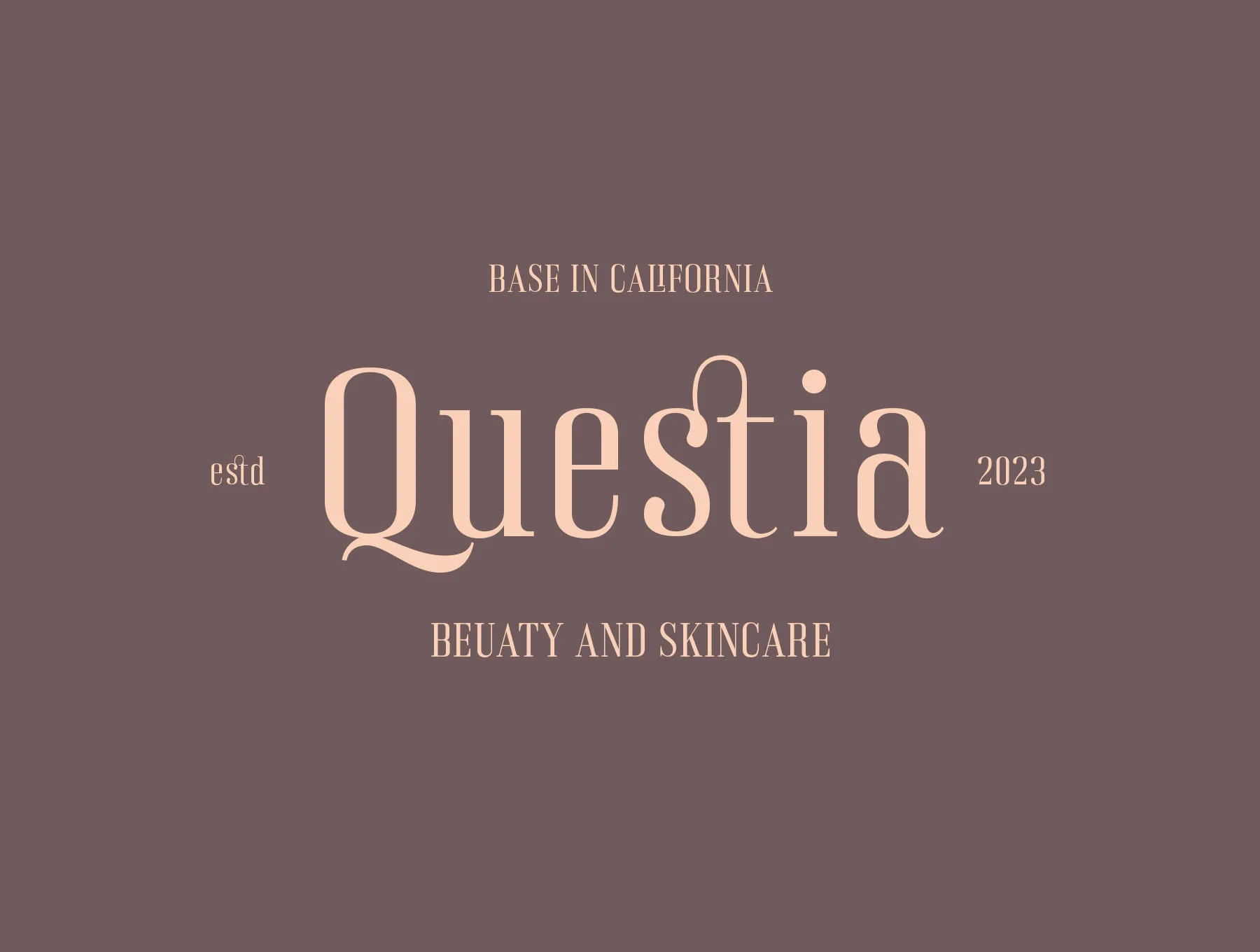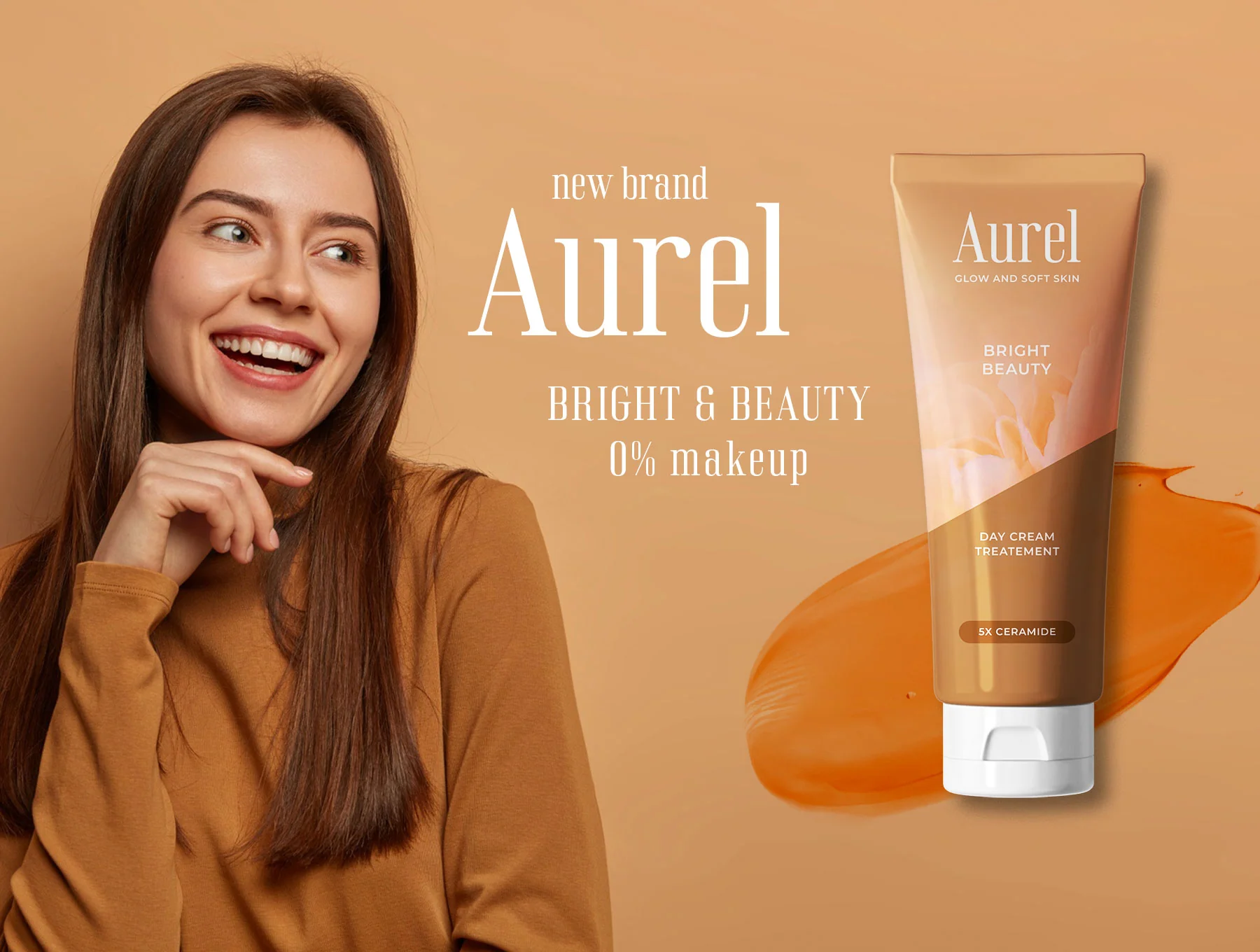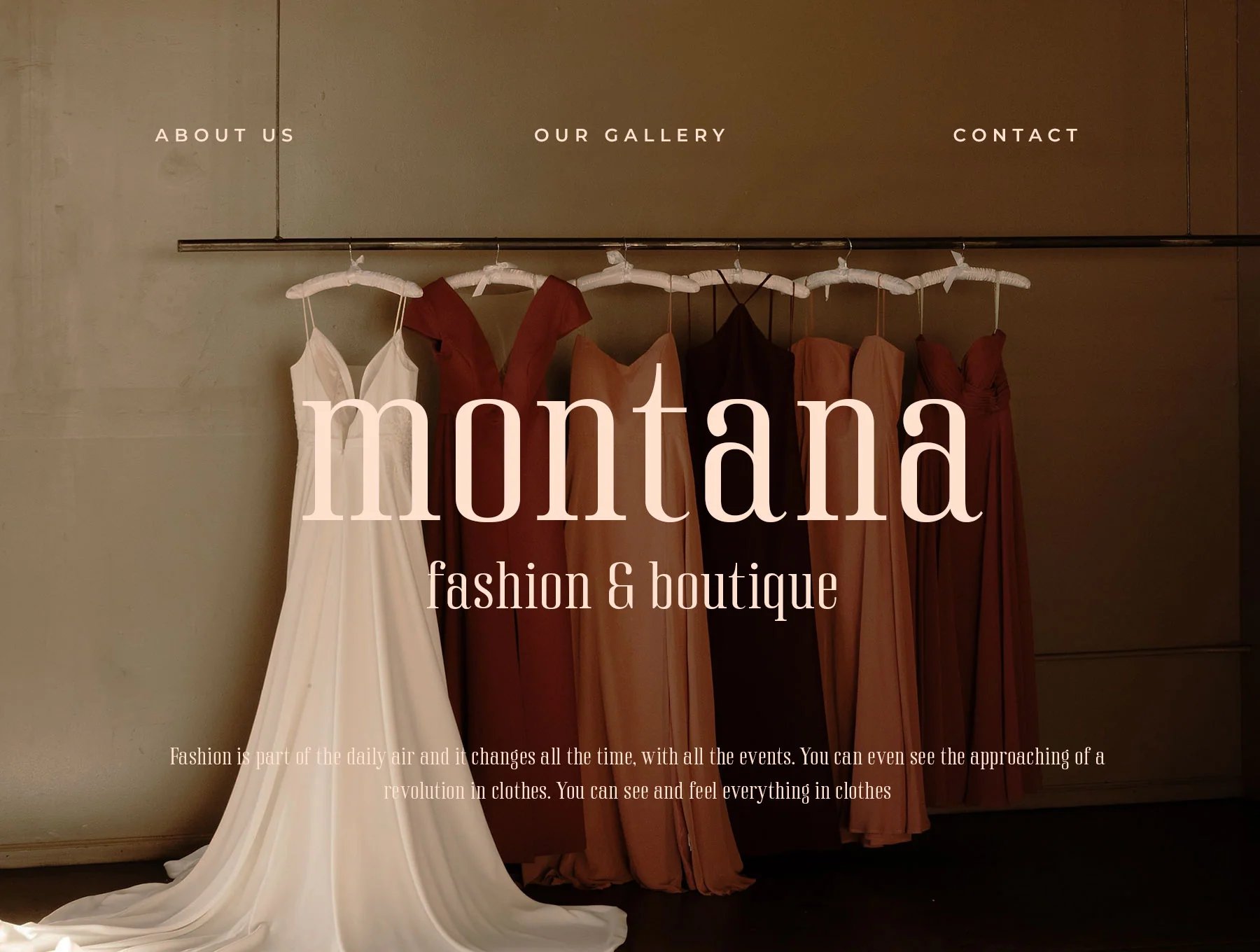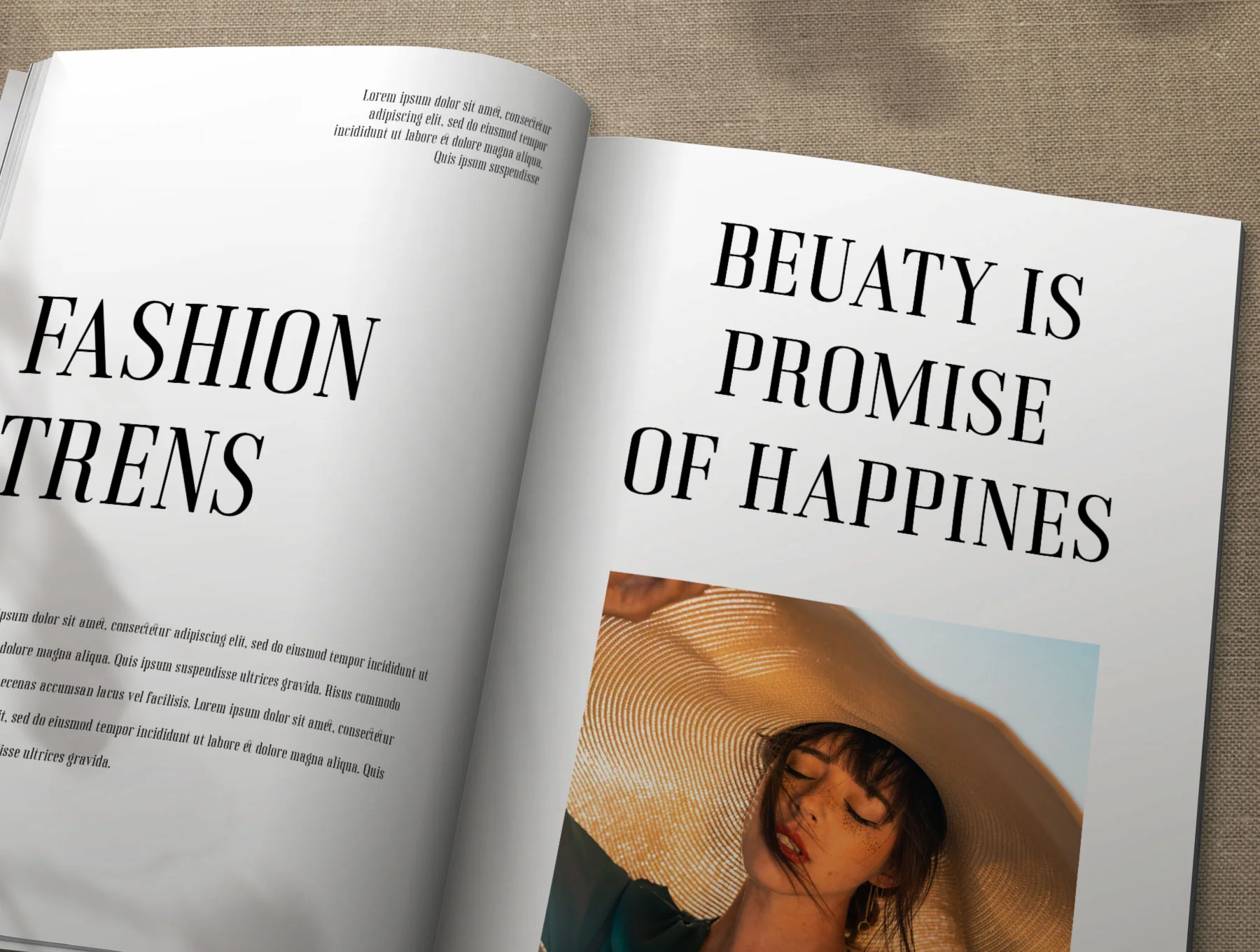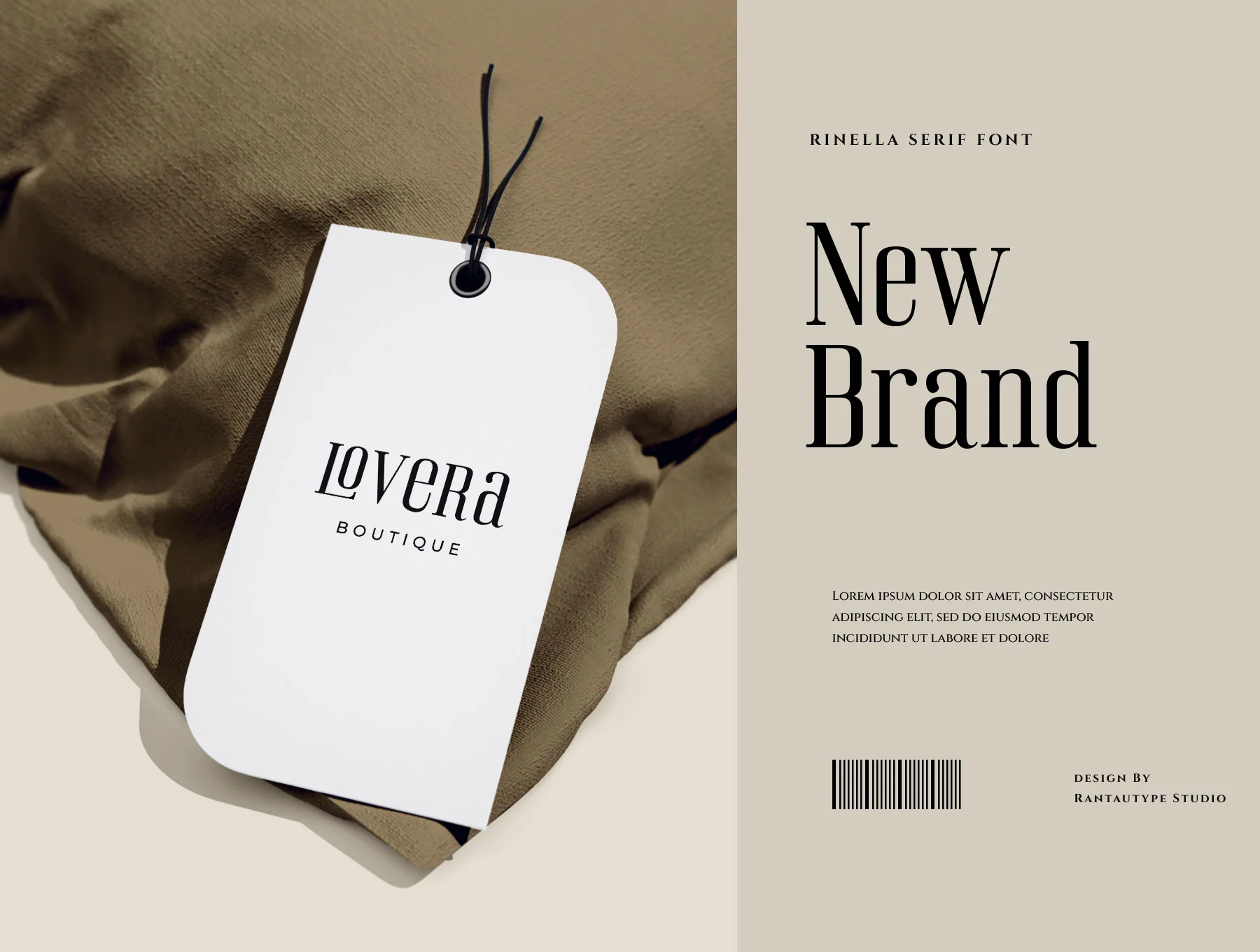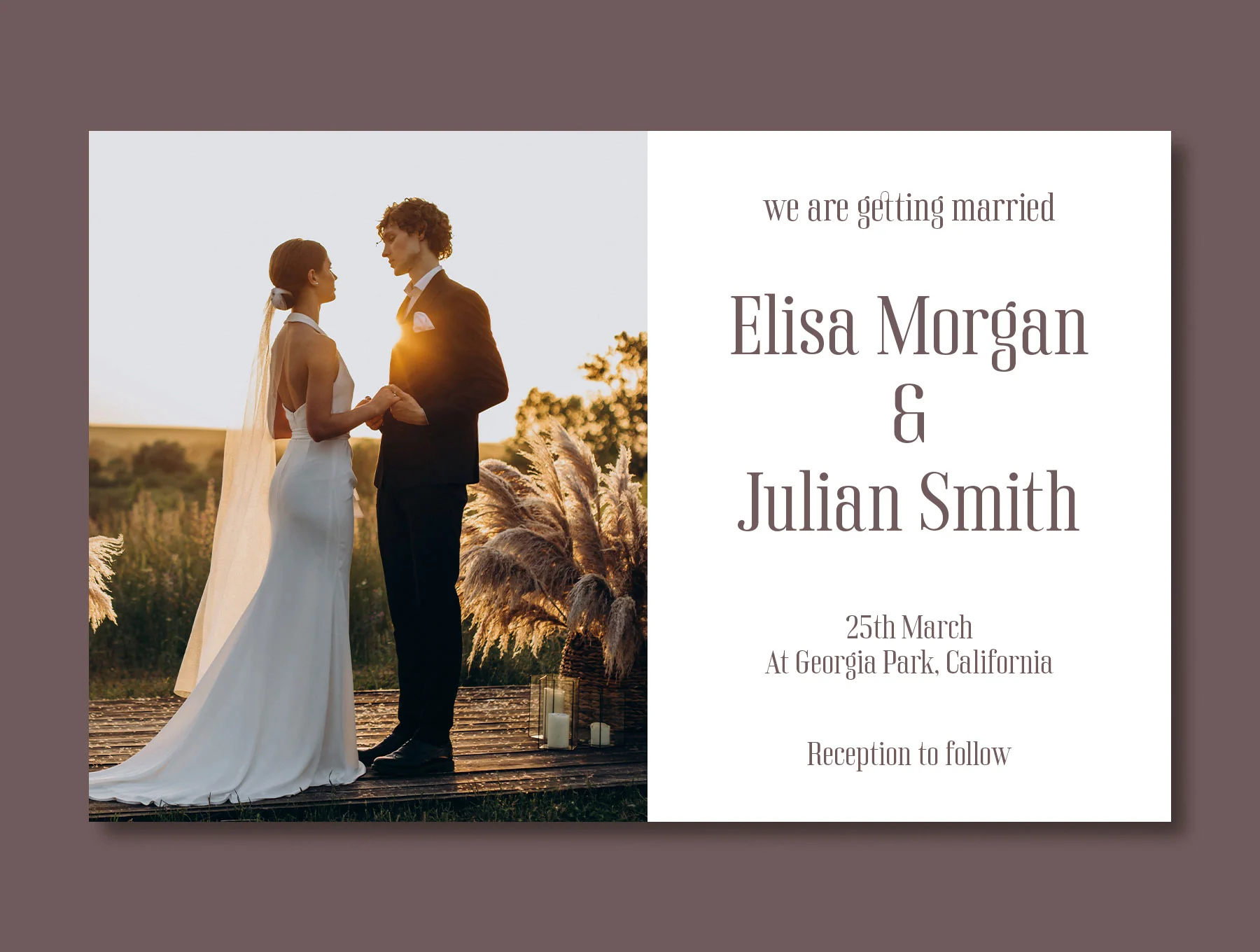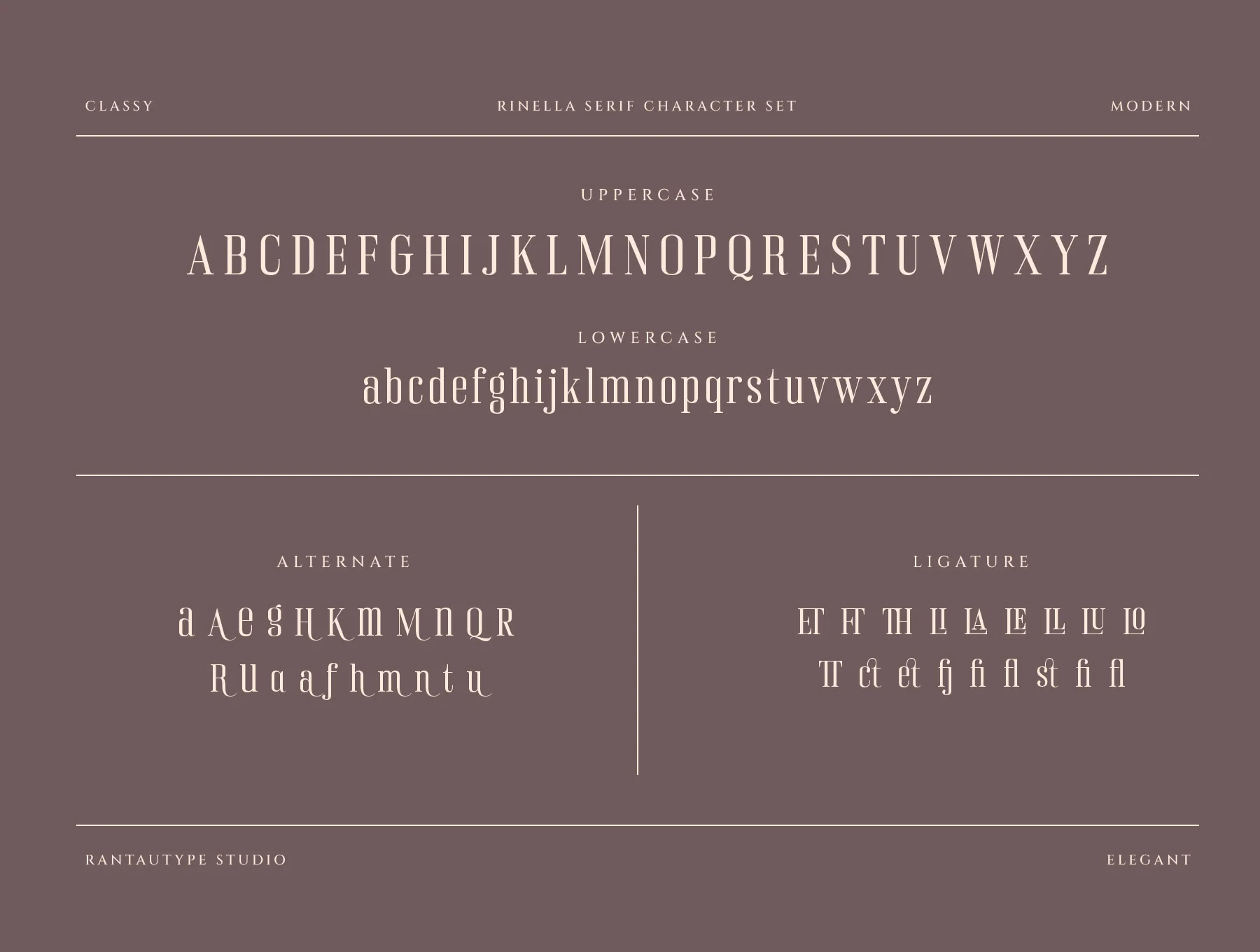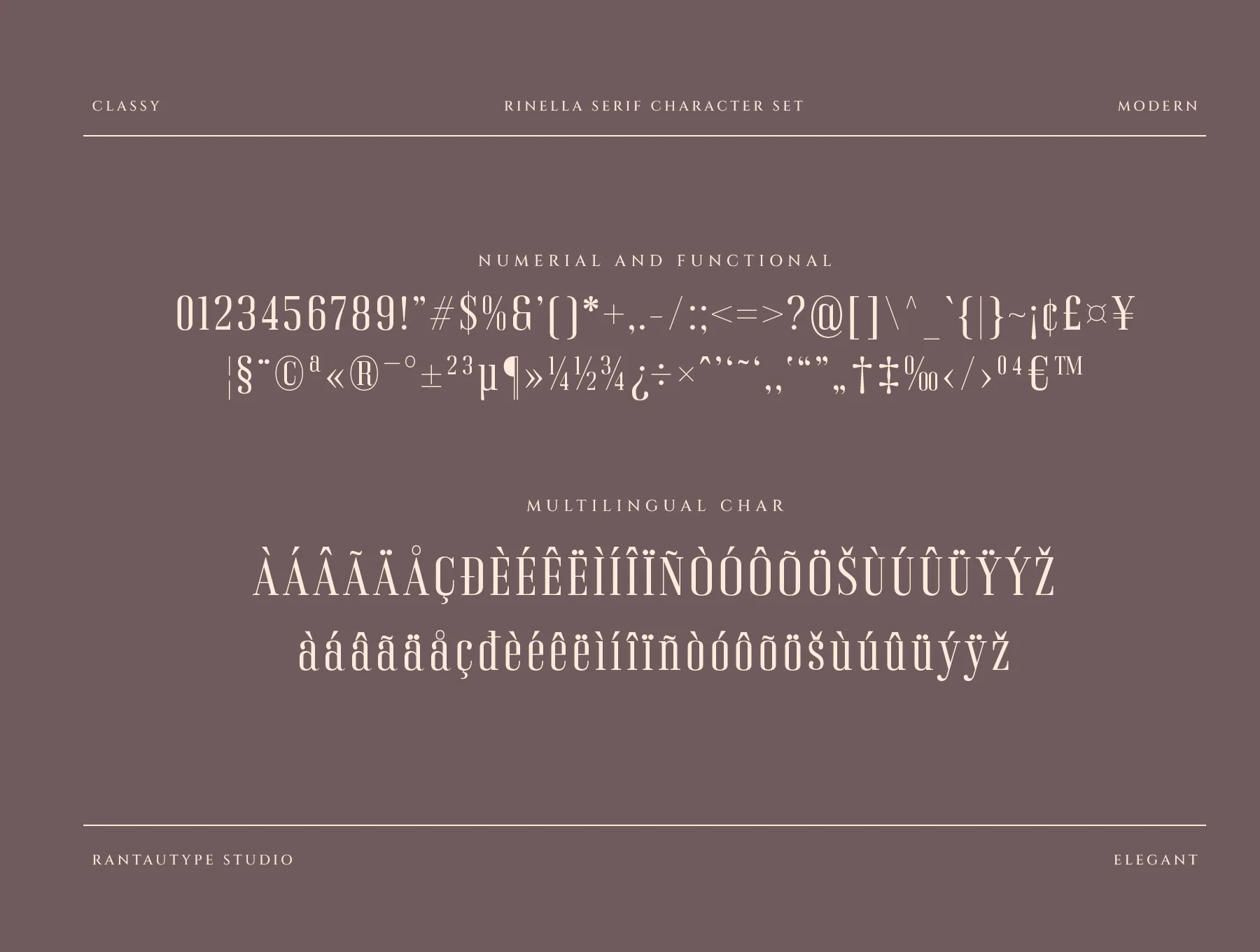
Rinella Modern Serif font
Rinella Contemporary Serif Typeface
Standard uppercase and lowercase letters
Numerals and functional characters
Alternate glyphs and ligatures
Rinella is a clean, refined modern serif display font with stylish forms plus optional ligatures and alternates. Ideal for fashion branding, logos, headlines, magazines, and chic lifestyle designs. Includes regular/italic OTF, TTF, and WOFF files, standard letters, numbers, multilingual support, easy install, and use on PC/Mac in Adobe apps or Microsoft Word.